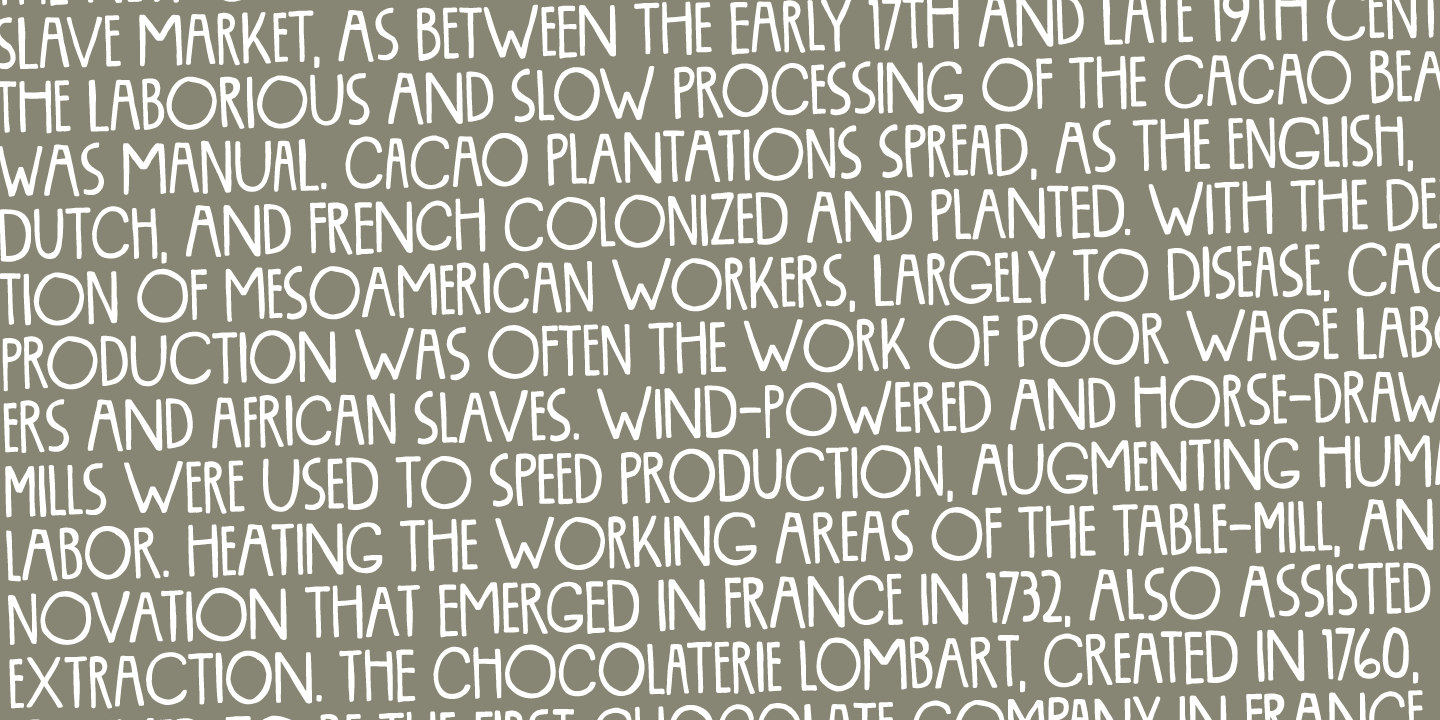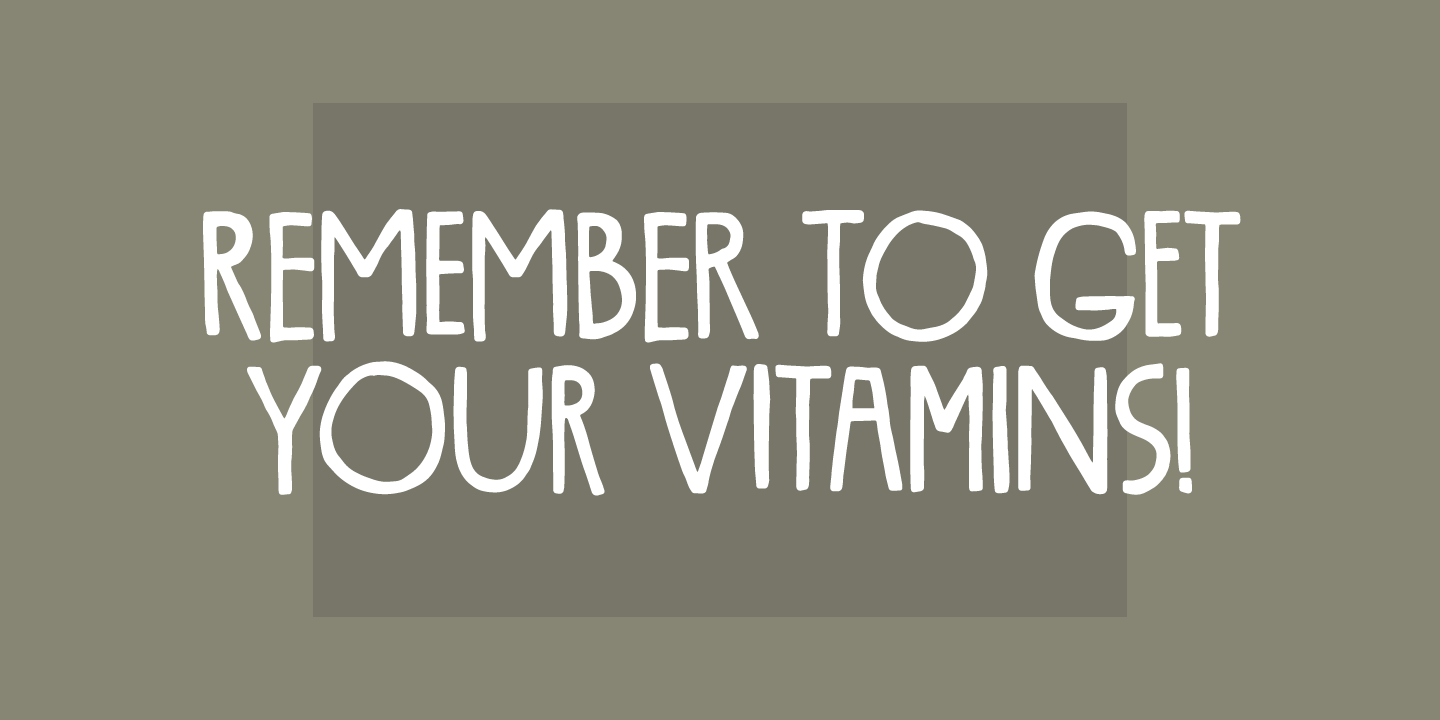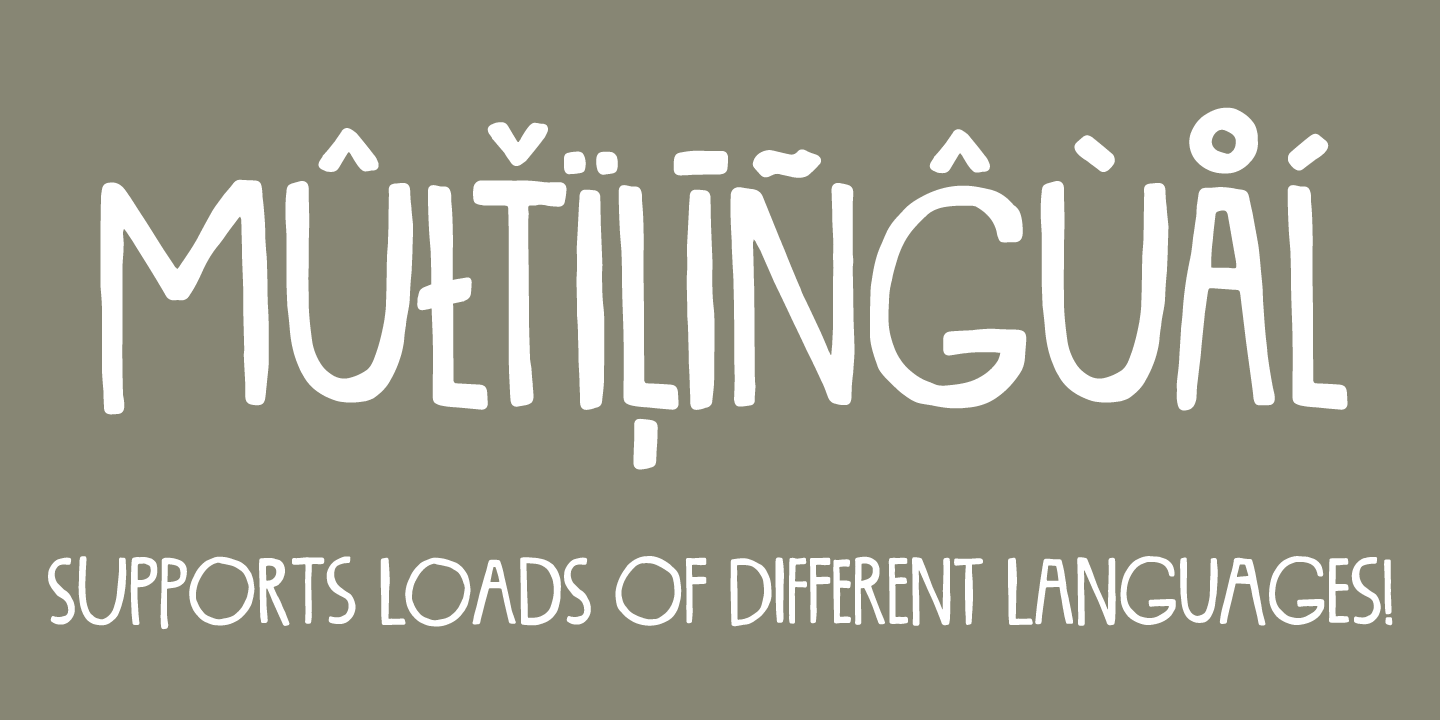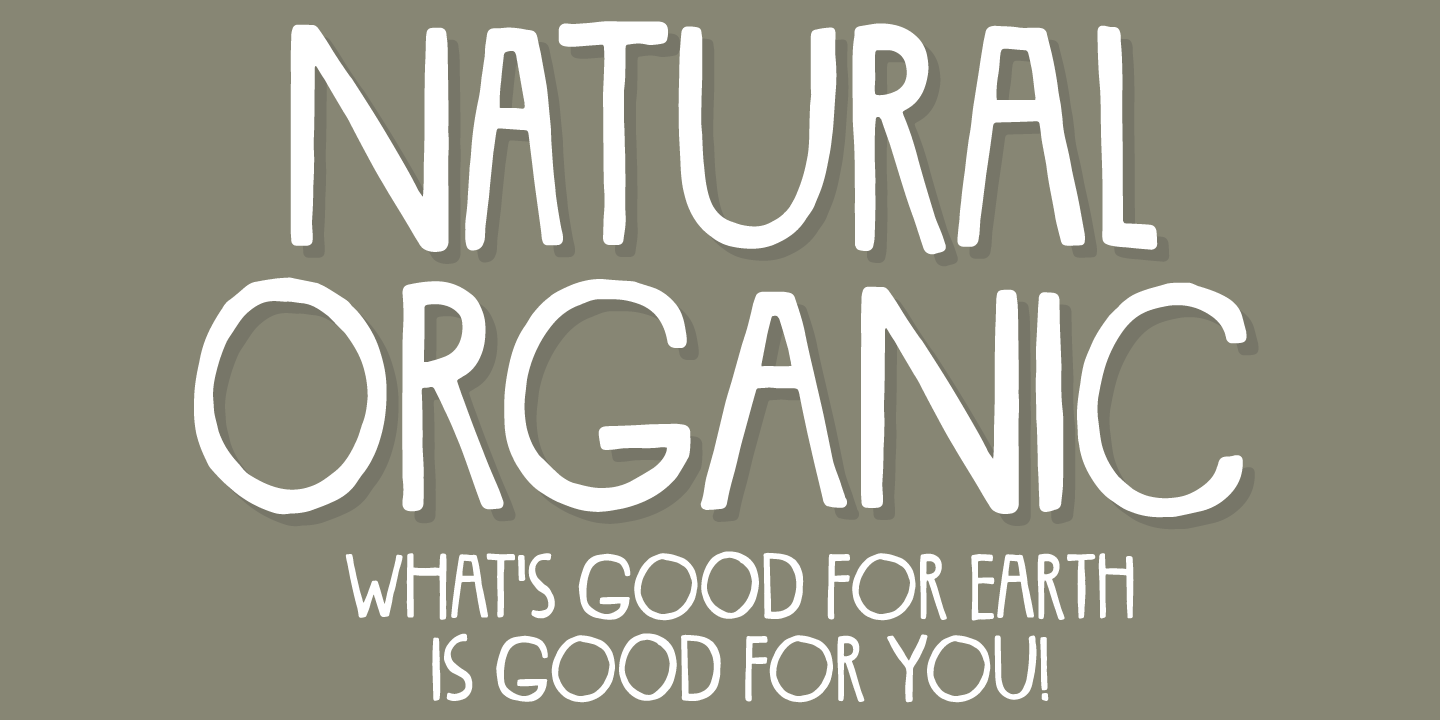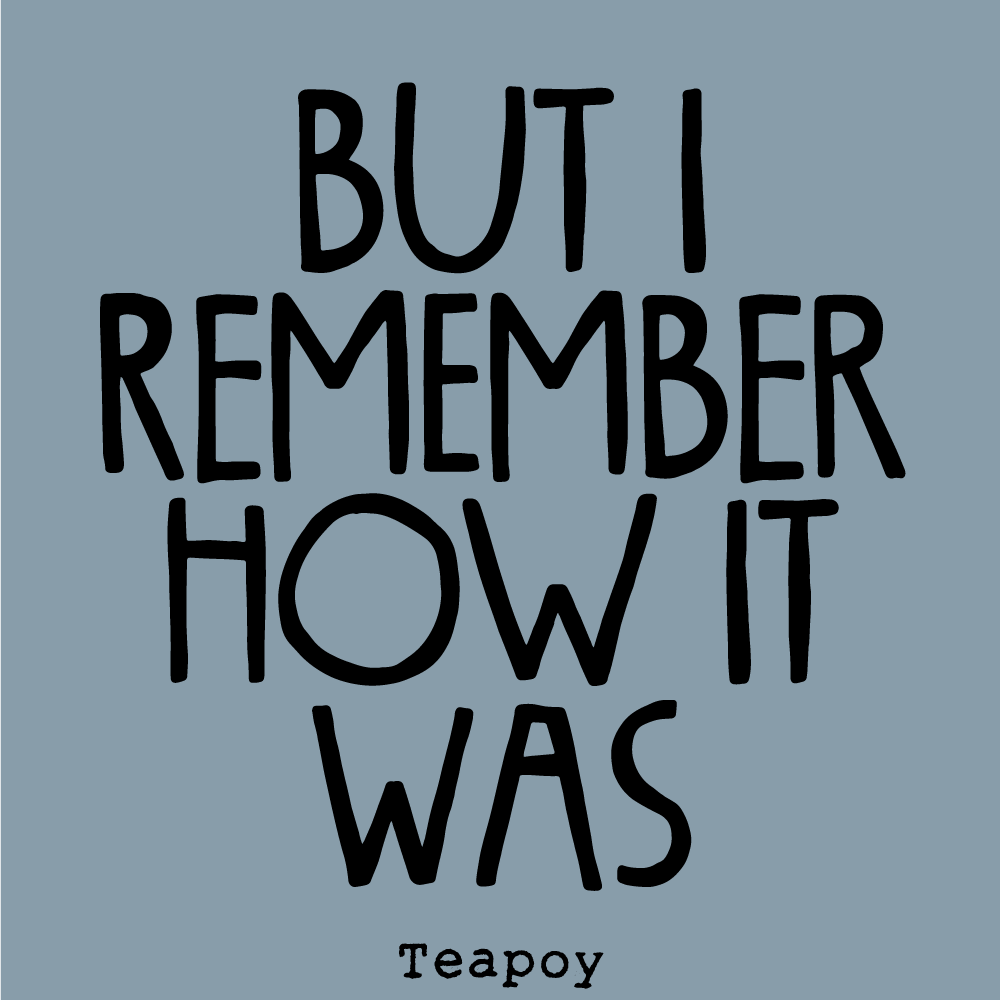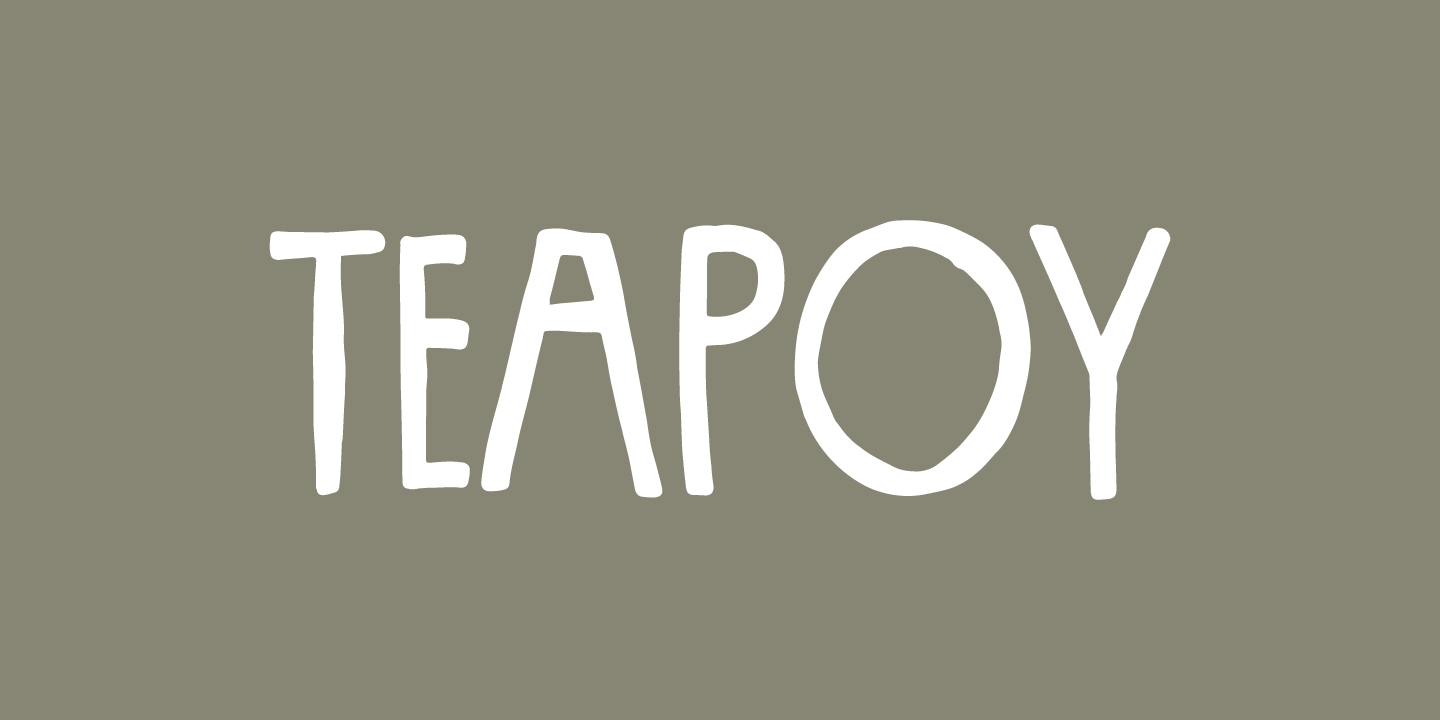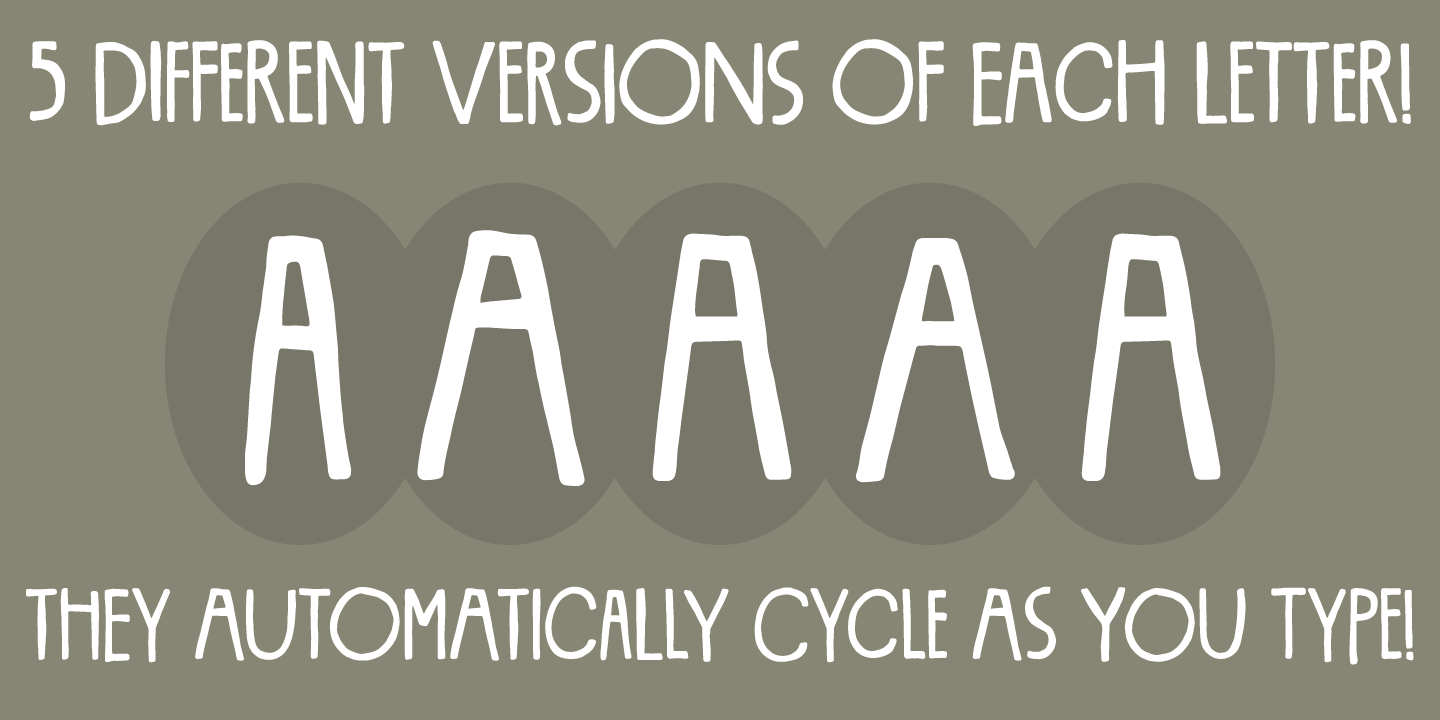
Teapoy
I got the tea, bring me your cup - and please bring a cake as well!
And while we enjoy this, please take a look at the Teapoy font - elegant in a simple way. Easy for the eye, that being in large or small scale.
The font has multilingual support as well as contextual alternates!